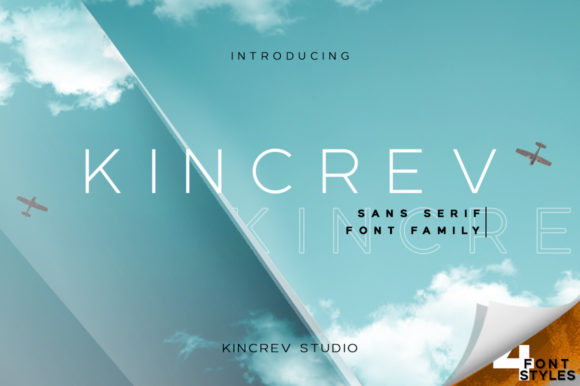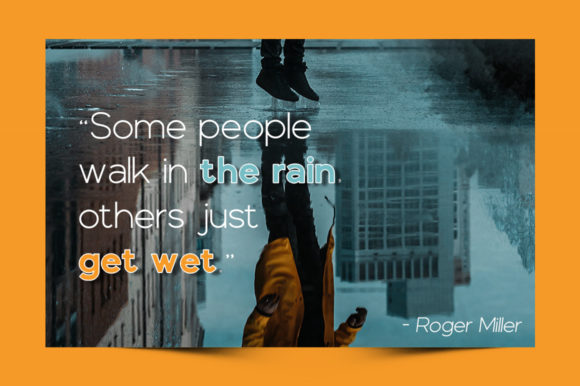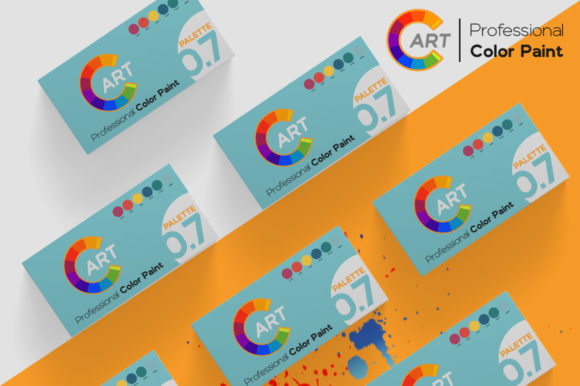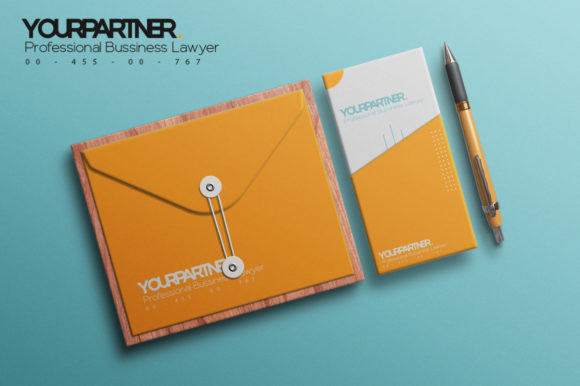
Kincrev Font: Minimalist Sans Serif for Modern Logo Design & Branding
About the Kincrev Font
Welcome to the world of Kincrev Font, a typeface that will inspire your next great project. Kincrev is a minimal, yet elegant sans serif font. Suitable to a wide variety of designs due to its neat and simple style, this font has the potential to become your favorite go-to font, no matter the occasion!
Kincrev’s clean lines and subtle curves make it ideal for headlines, logos, and short-form text in branding materials and website headers. Its elegance also translates well to packaging design, particularly for products emphasizing sophistication and minimalism. However, its minimal x-height makes it less suitable for extended body copy or UI elements where readability is paramount.
Pairing Kincrev effectively depends on the desired emphasis. For a modern, sophisticated feel, consider pairing it with a geometric sans-serif like Futura or a classic serif like Garamond. To add a touch of playfulness, a rounded sans-serif such as Lato could be used.
Kincrev projects a refined, modern, and subtly confident personality. It’s well-suited to brands seeking a clean, sophisticated image—think high-end fashion, technology companies, or minimalist lifestyle products.
Kincrev Font Usage Examples
Kincrev Font Example